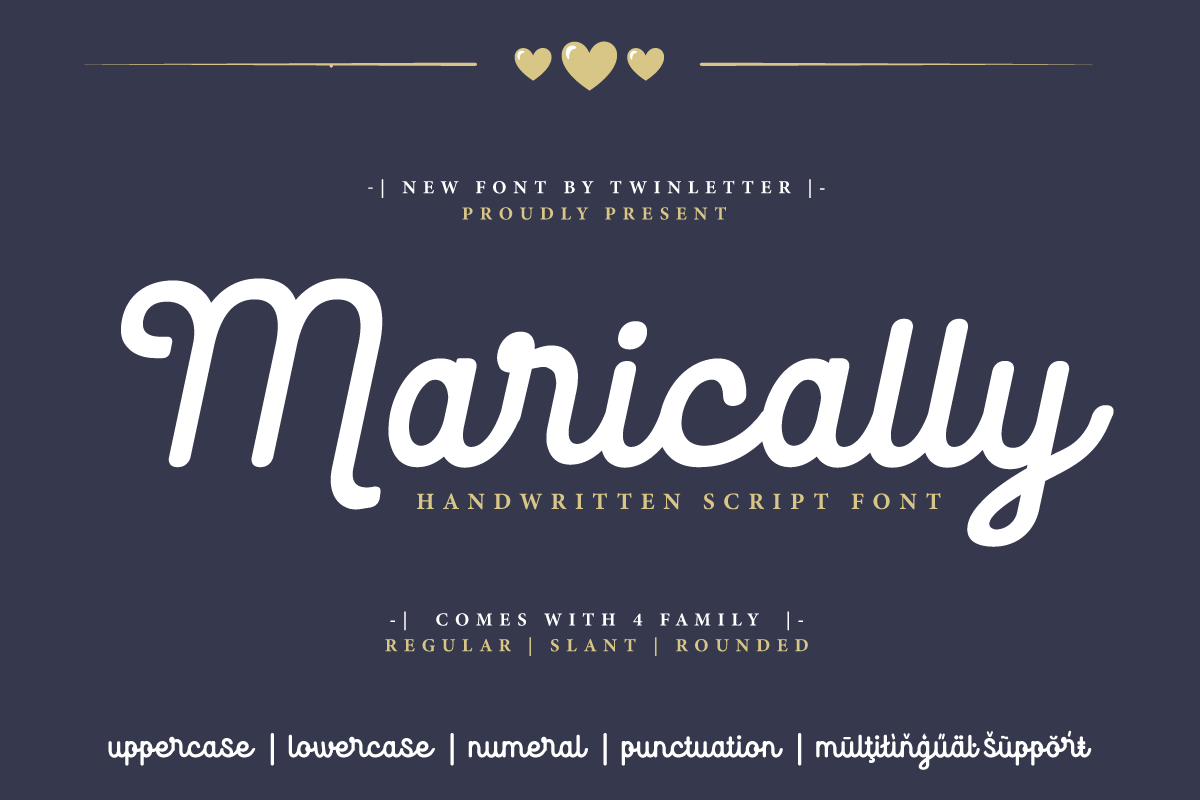
Marically Font
Discover the refined charm of Marically, an exquisite script font that effortlessly brings elegance and fluidity to your design projects. With its graceful strokes and smooth transitions, Marically creates a sophisticated and stylish impact, perfect for a variety of applications.
Whether you’re designing elegant invitations, crafting distinctive branding materials, or enhancing editorial layouts, Marically adds a touch of class and personality to every project. Its intricate curves and flowing lines create a sense of movement and grace, making it an ideal choice for high-end designs that require a sophisticated flair.
Marically stands out in a sea of fonts with its ability to blend traditional script elegance with a modern touch. This makes it a versatile option for creating memorable visuals that leave a lasting impression. From wedding invitations and personal branding to refined editorial work and promotional materials, Marically infuses your designs with a sense of luxury and refinement.
Incorporate Marically into your next project and experience how its timeless elegance can elevate your work. With its detailed and fluid design, it’s sure to enhance the overall aesthetic of your designs and make them truly stand out.